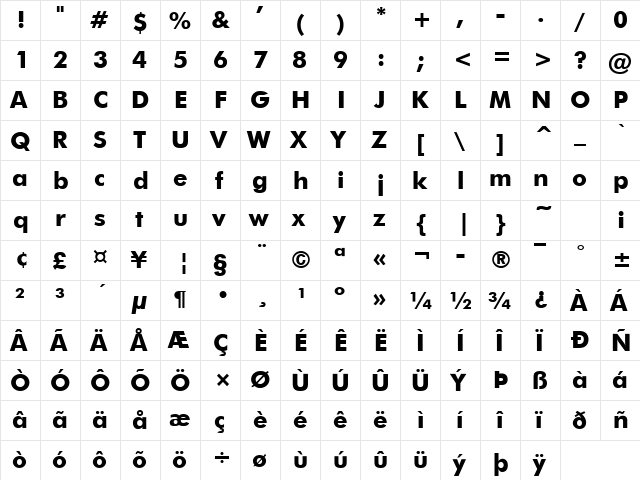
Futuri Black Regular
Design Context for Futuri Black Typeface
Futuri Black has a distinctly futuristic character, with geometric precision and clean angles that feel at home in technology, gaming, and sci-fi contexts.
Pro Tip: Try Futuri Black with generous letter-spacing in UI labels and navigation — the geometric forms benefit from room to breathe.